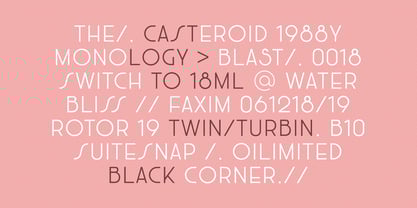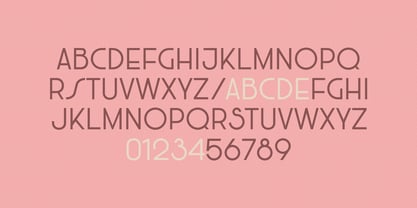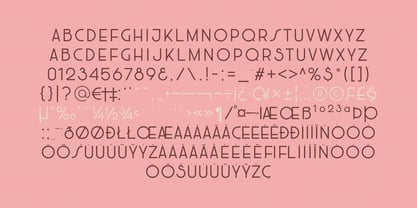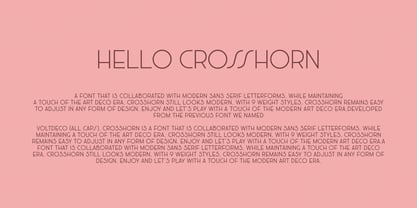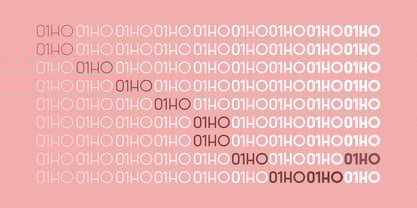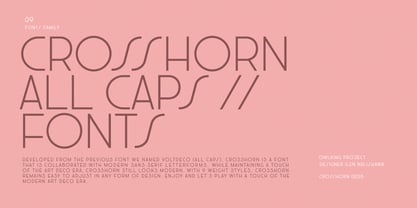
Crosshorn
by Owl king project
The Crosshorn Font Family was designed by Darhilen and published by Owl king project. Crosshorn contains 9 styles and family package options.
Developed from the previous font we named Voltdeco (ALL CAPS), Crosshorn is a font that is collaborated with modern sans serif letter form, while maintaining a touch of the art deco era, crosshorn still looks modern, with 9 weight styles, crosshorn remains easy to adjust in any form of design.
Enjoy and let's play with a touch of the modern art deco era.